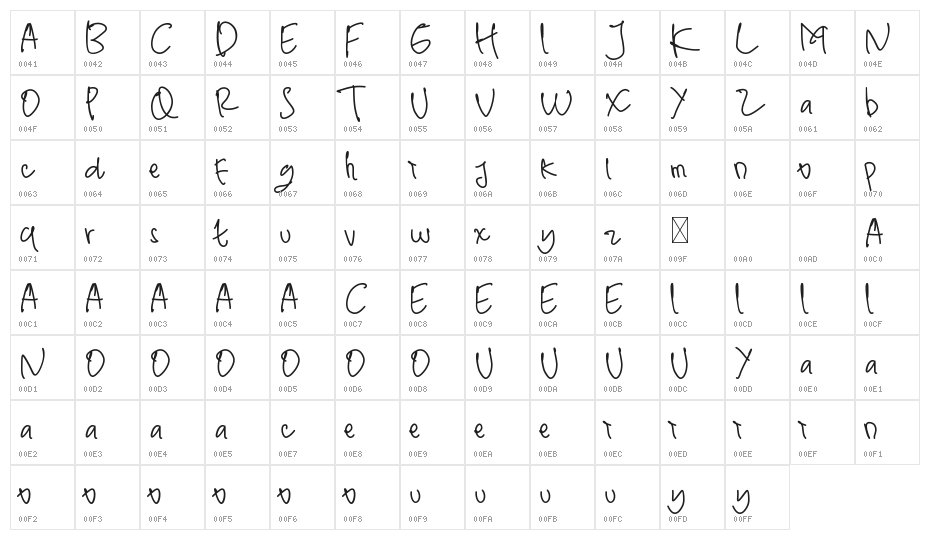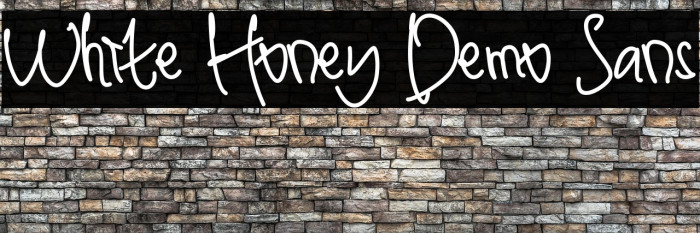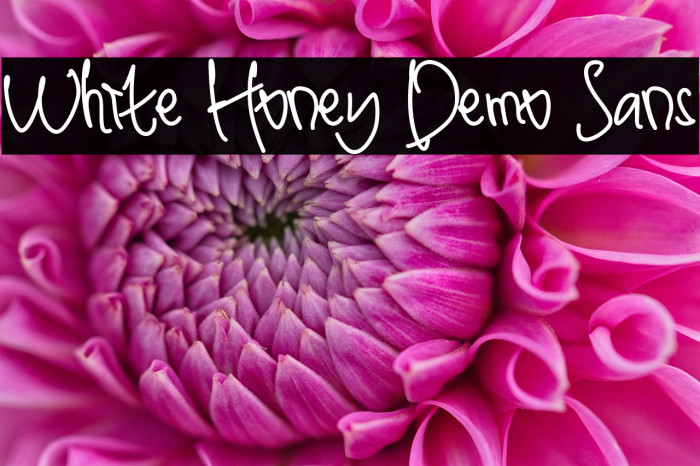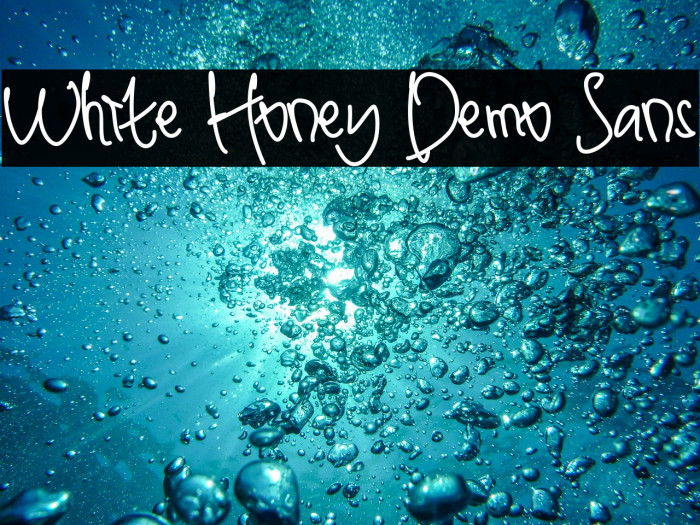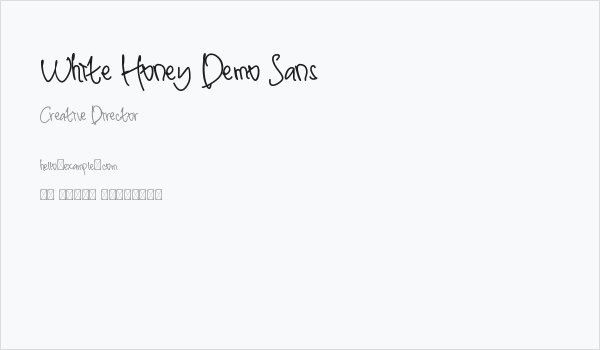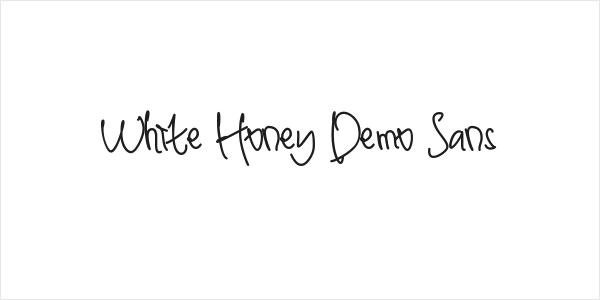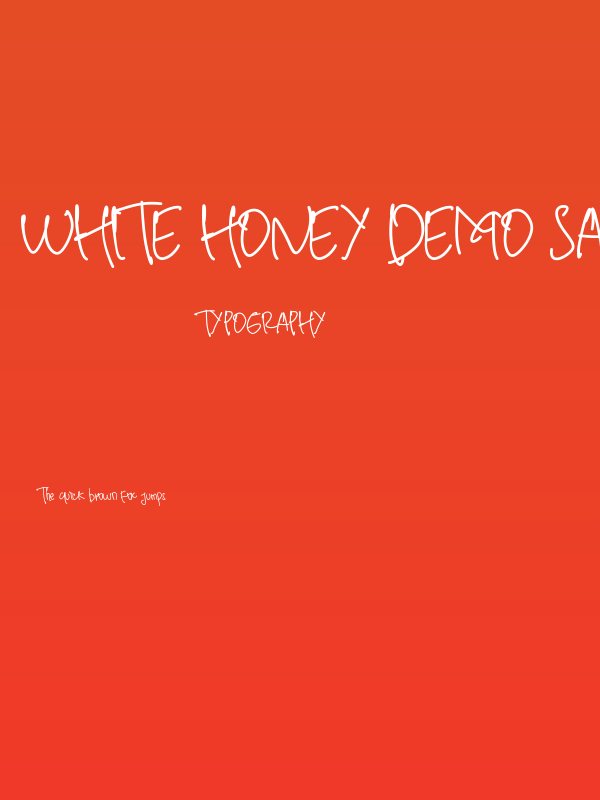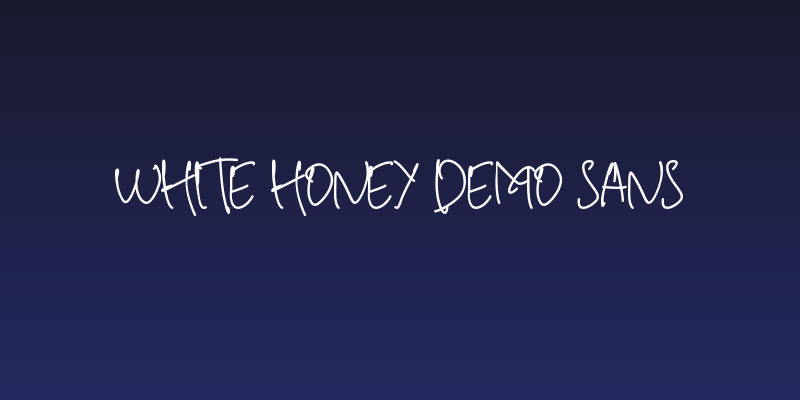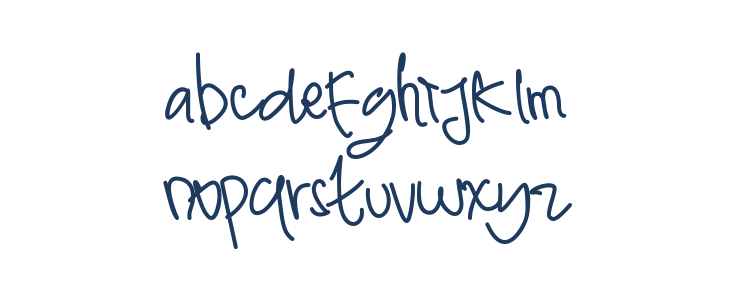
White Honey Demo Sans Font
White Honey Demo Sans Description
This font features a playful and casual handwritten style, characterized by its loose and flowing letterforms. The strokes are uneven, giving it a dynamic and organic feel. The uppercase and lowercase letters maintain a consistent style, with some letters exhibiting unique flourishes and loops that add to its charm. The overall appearance is informal and approachable, making it suitable for creative and artistic projects. The font's irregularity and whimsy make it stand out, providing a personal touch to any design.
| Use Case | Logos, Invitations, Creative projects |
| Proposed Projects | Ideal for greeting cards, invitations, personal branding, and creative projects that require a personal touch. |